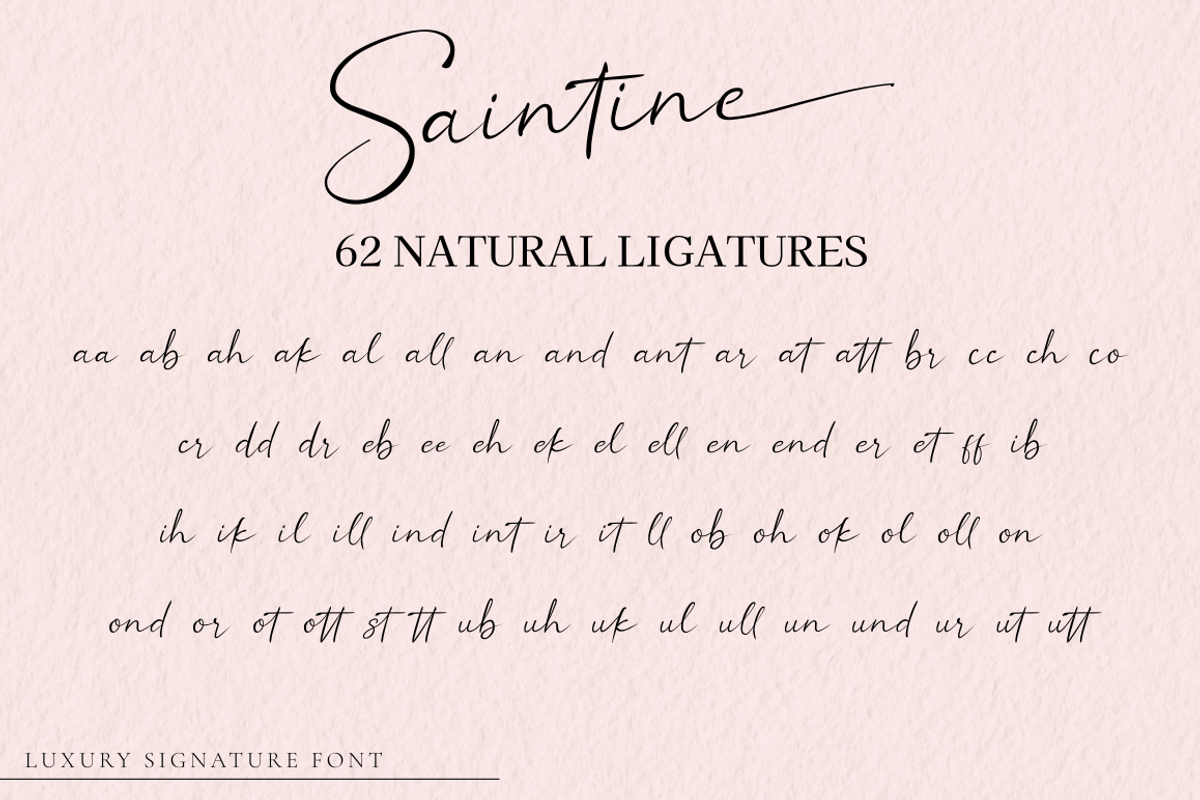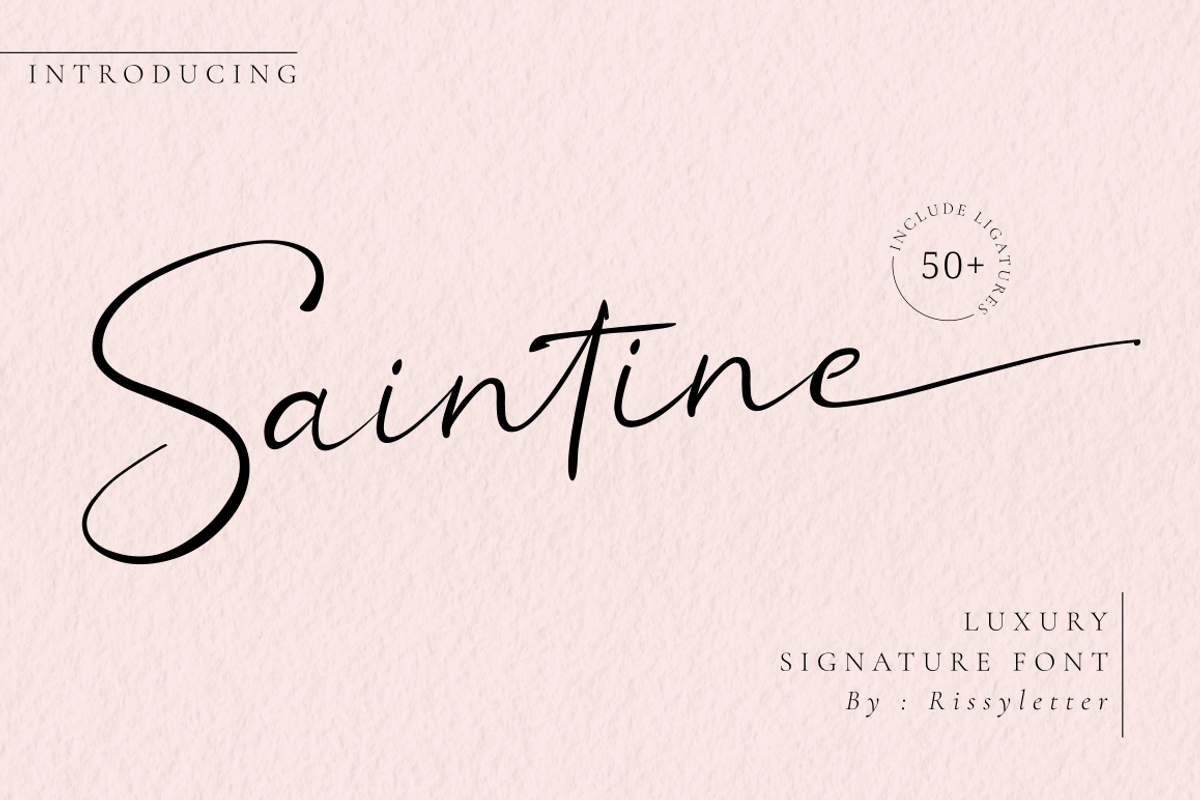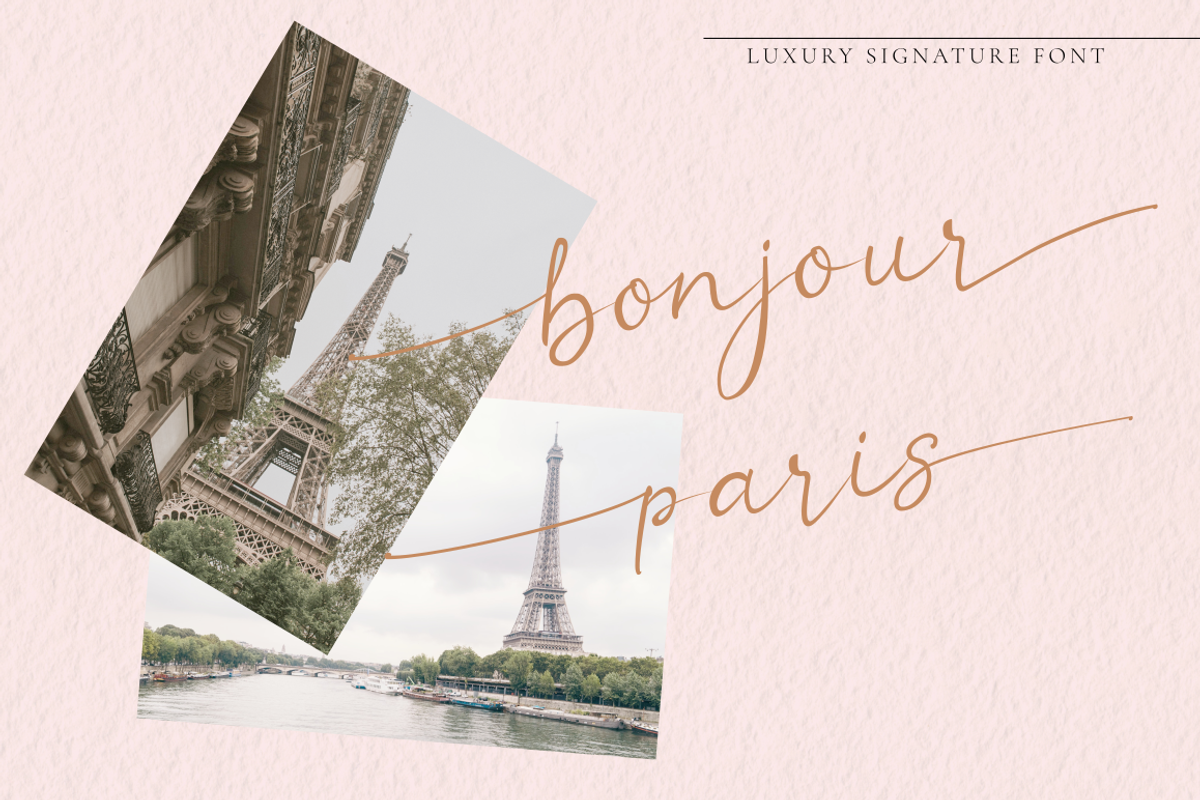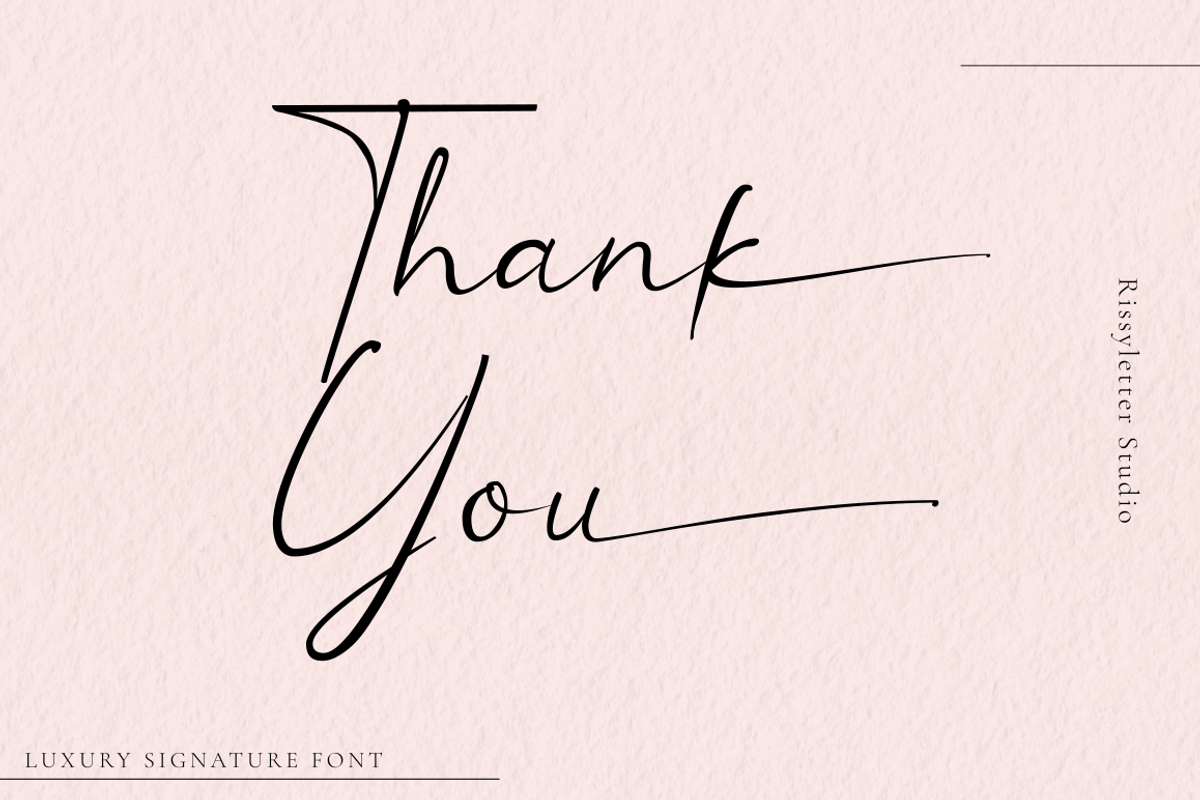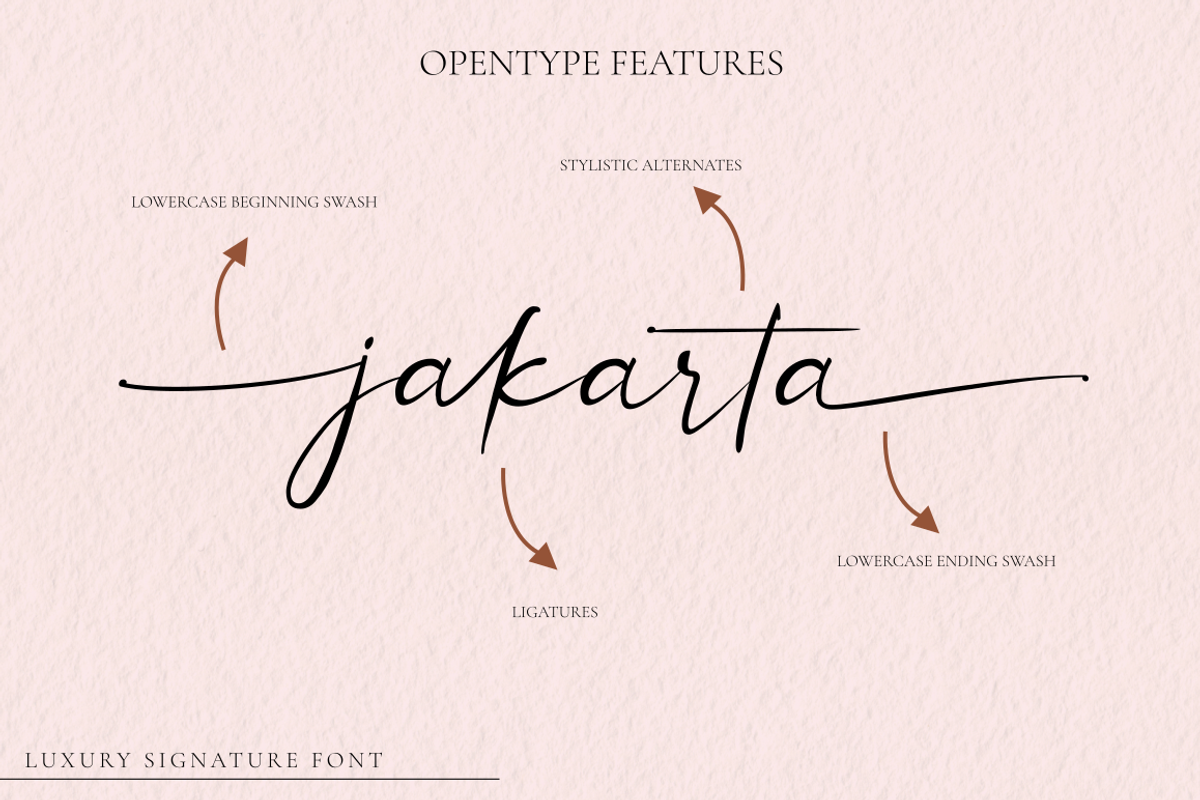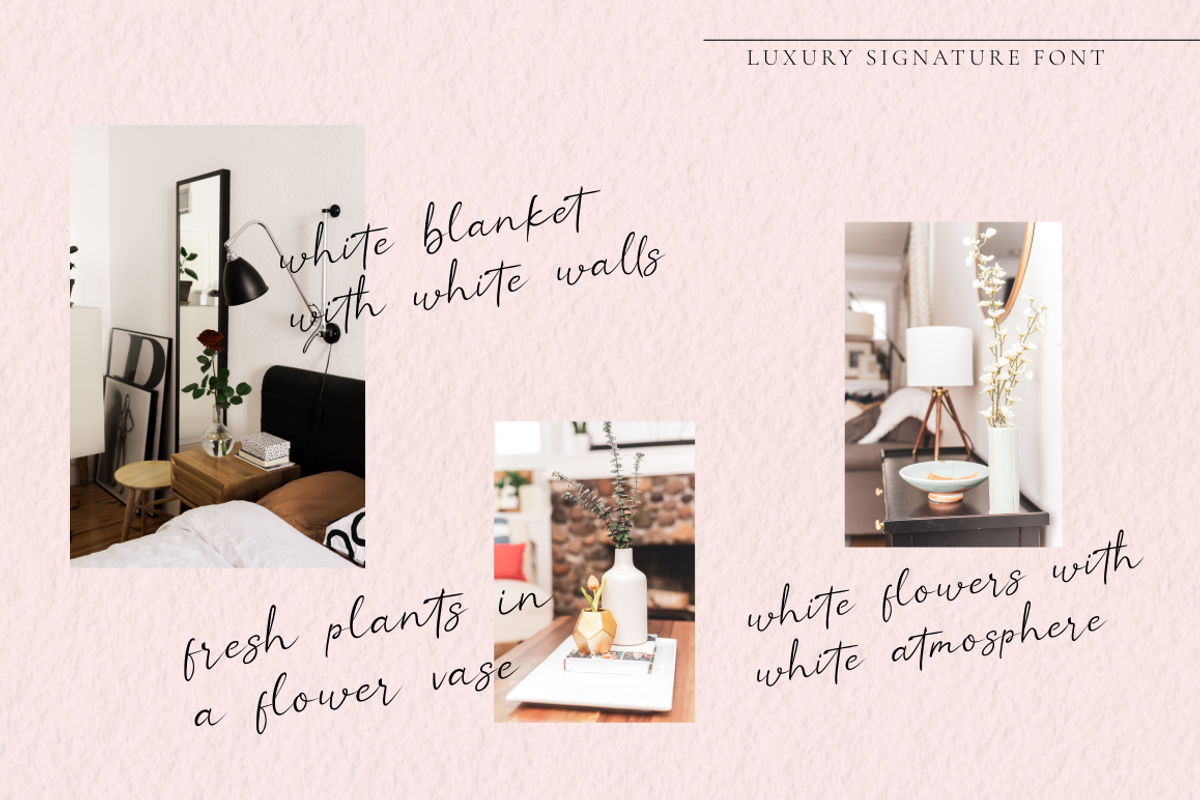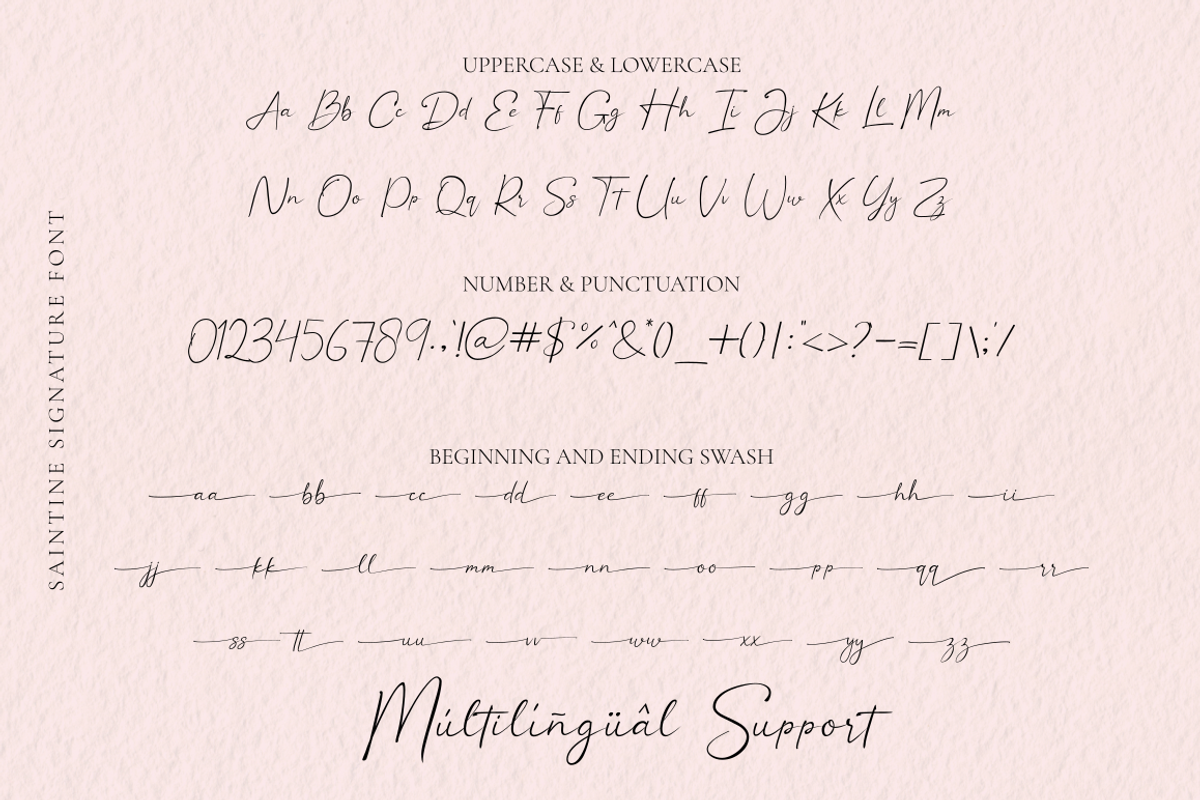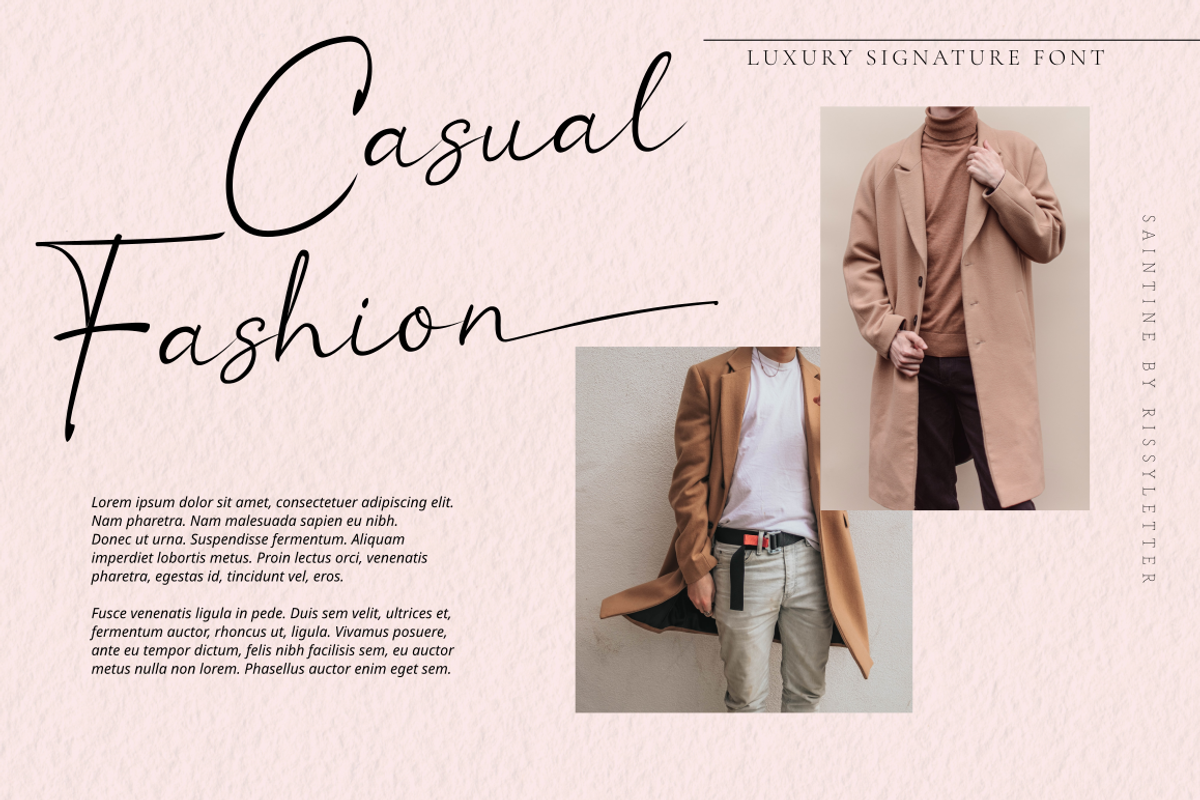
Saintine | Classy Signature Font
Saintine font is a stylish, elegant and modern signature script font This font will look awesome and amazing in many ways to your latest project.
perfect for various projects such as logos and branding, hand lettering, merchandise, advertisements, invitations, social media posts etc
- More than 300 of glyphs (include Uppercase, Lowercase, Numerals & Punctuations, Ligature, Stylistic)
- Support multilingual support